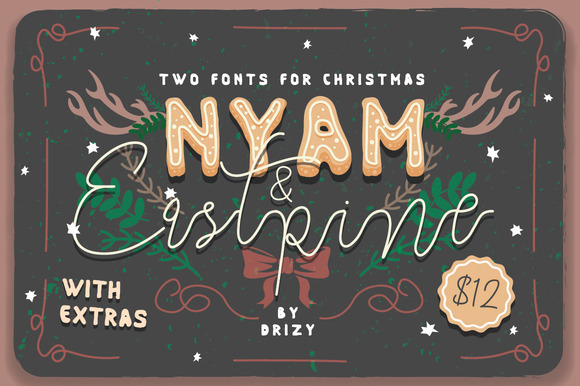
Unleash the Festive Charm of Christmas with NYAM & Eastpine Font: Your Gateway to Enchanting Designs
Christmas, a season of joy, love, and merriments, deserves a touch of uniqueness and creativity to make it truly unforgettable. Introducing NYAM & Eastpine Font, a masterpiece crafted by Drizy Studio, ready to transform your designs into captivating works of art. With a symphony of seven fonts, this font family is the ultimate Christmas companion, allowing you to effortlessly weave magic into your creative endeavors.
Immerse yourself in the delightful layers of Nyam, a font inspired by the sweet treats of Christmas cookies. Its playful shapes and cheerful curves evoke a sense of nostalgia and warmth, perfect for adding a whimsical touch to your Christmas cards, ornaments, and festive designs.
Explore the modern elegance of Eastpine, a monoline-type font that exudes sophistication and charm. Its clean lines and minimalist aesthetics bring a touch of contemporary flair to your designs, making them stand out with a timeless appeal.
Unlock a world of creative possibilities with the versatile Eastpine & Nyam font family. Create personalized Christmas cards that express your heartfelt messages, design stunning ornaments that capture the essence of the season, and craft enchanting invitations that ignite the spirit of celebration.
Go beyond traditional Christmas elements and let your imagination soar. The Nyam Extras font, a treasure trove of festive dingbats, awaits your creative touch. Embellish your designs with charming labels, whimsical ornaments, and intricate patterns, adding a layer of detail that captivates the eye.
Experience the layered beauty of Nyam Regular, the foundation of this extraordinary font family. Use it as a base to cast shadows and create depth, transforming your designs into multidimensional masterpieces.
Unveil the artistic flair of Nyam Shape, the second layer that elevates your creations. Layer it atop Nyam Regular or let it shine on its own, adding a touch of texture and dimension that will leave your audience spellbound.
Discover the playful elegance of Nyam Topping 1 and Nyam Topping 2, the final layers that complete the Nyam font symphony. Experiment with different combinations to create mesmerizing effects, adding a touch of frosted allure or a dash of festive sparkle to your designs.
With NYAM & Eastpine Font, the possibilities are endless. Let your creativity roam free as you craft designs that radiate the warmth and wonder of Christmas. Its versatility knows no bounds, making it an indispensable tool for creating captivating social media graphics, enchanting website designs, and captivating marketing materials.
Embrace the magic of Christmas with NYAM & Eastpine Font. Dive into its layers of beauty, let your imagination run wild, and create designs that not only impress but also leave a lasting impression. Elevate your festive creations to new heights and make this Christmas truly extraordinary.